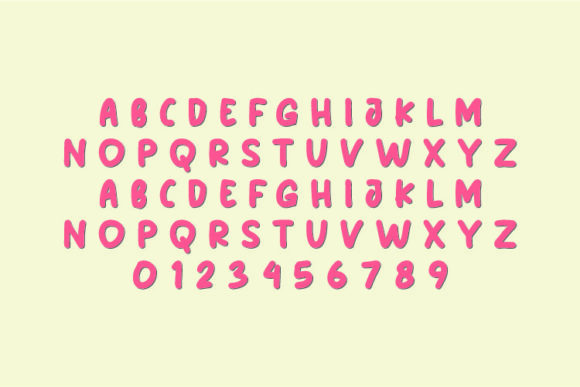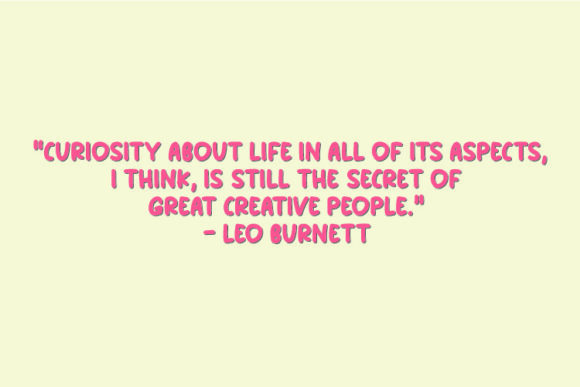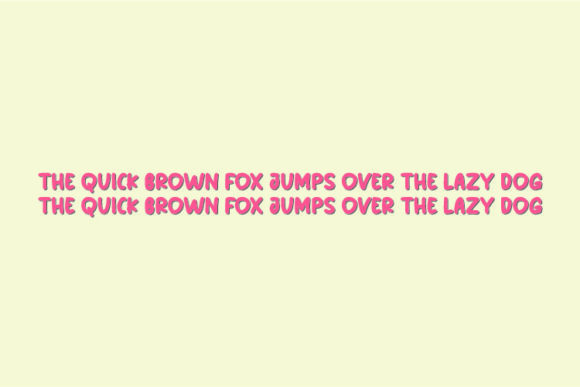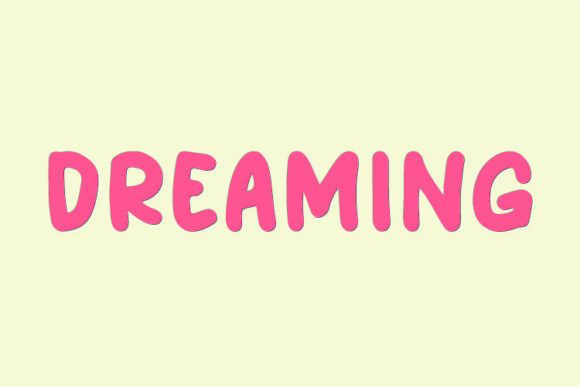
Dreaming Font: The Cute and Natural Handwritten Font for Your Creative Projects
Are you a designer, crafter, or artist looking for a font that can add a touch of warmth and playfulness to your creations? Look no further than the Dreaming Font! This adorable handwritten font is perfect for a wide range of projects, from cartoon-related designs and children’s games to branding, packaging, and more.
What Makes Dreaming Font So Special?
Dreaming Font is a cute and natural handwritten font that boasts a unique, organic feel. Its soft, rounded edges and gentle curves make it an excellent choice for designs that require a friendly, approachable vibe. Whether you’re creating a logo, a brochure, or a social media graphic, this font is sure to bring a smile to your audience’s faces.
Perfect for Cartoon-Related Designs and Children’s Games
Cartoon characters, animated movies, and children’s games often require a font that’s both playful and engaging. Dreaming Font fits the bill perfectly! Its childlike charm and innocence make it an excellent fit for designs aimed at kids or those with a youthful, carefree spirit. Imagine using this font to create a logo for a children’s toy company, a character’s dialogue bubble, or a title card for a kids’ show – the possibilities are endless!
Beyond Cartoons: Using Dreaming Font in Other Creative Projects
While Dreaming Font shines in cartoon-related designs and children’s games, its versatility extends far beyond these applications. This font can add a lovely touch to:
- Branding and packaging: Use Dreaming Font to create eye-catching labels, product names, or taglines that exude a sense of friendliness and approachability.
- Stationery and invitations: Add a personal touch to your letters, cards, and invitations with this charming font.
- Digital media: Incorporate Dreaming Font into your social media graphics, blog headers, or website designs to inject a dose of playfulness and whimsy.
- Crafting and DIY projects: Use Dreaming Font to create titles, headings, or quotes for your handmade crafts, such as journals, planners, or decorative art pieces.
Why Choose Dreaming Font?
So, what sets Dreaming Font apart from other fonts? Here are just a few reasons why designers and crafters love this font:
- Unique and eye-catching: Dreaming Font has a distinct, handcrafted feel that will make your designs stand out from the crowd.
- Easy to read: Despite its playful nature, this font remains highly legible, even at smaller sizes.
- Versatile: Use Dreaming Font in a wide range of projects, from digital designs to handmade crafts.
- Emotional connection: This font has a way of evoking feelings of warmth, comfort, and nostalgia – perfect for designs that aim to create an emotional connection with the audience.
In conclusion, Dreaming Font is a delightful, natural handwritten font that’s perfect for designers, crafters, and artists looking to add a touch of playfulness and warmth to their creations. With its unique charm, versatility, and emotional resonance, this font is sure to become a favorite in your design toolkit. So go ahead, give Dreaming Font a try, and see how it can bring your designs to life!